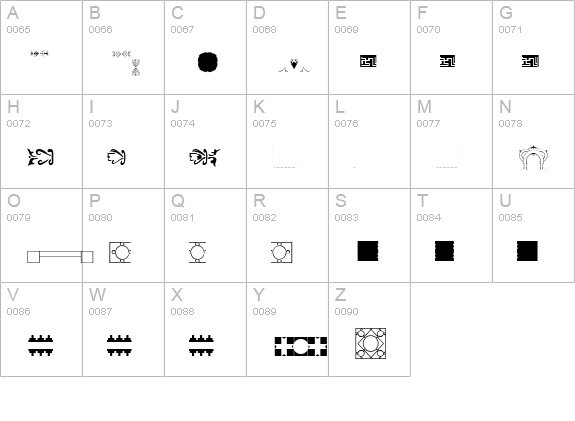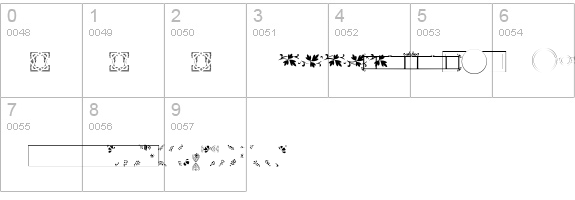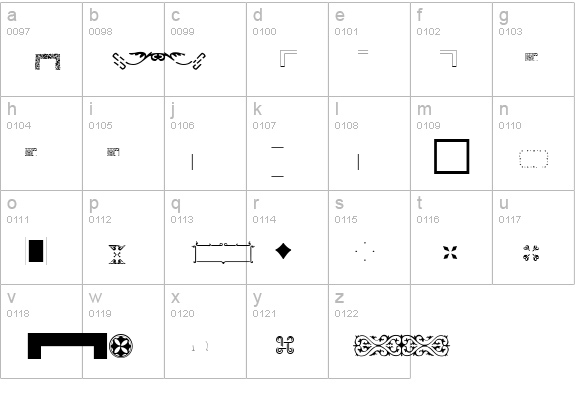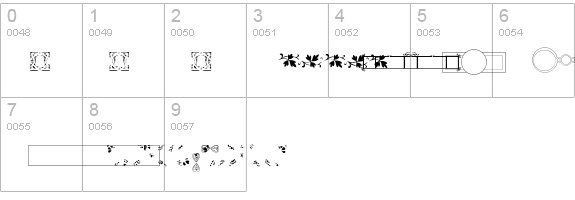
PFOrnmTreasures3-Layer2 font is a stunning display font that exudes elegance and sophistication. Its intricate layers and ornate design make it perfect for adding a touch of luxury to your projects. This font is ideal for creating eye-catching headlines, invitations, logos, and more. The best part? PFOrnmTreasures3-Layer2 font is available for free download at FontsMarket.com. Whether you're a designer looking to elevate your designs or someone who simply appreciates beautiful typography, this font is sure to impress. Download it today and add a touch of glamour to your creations!